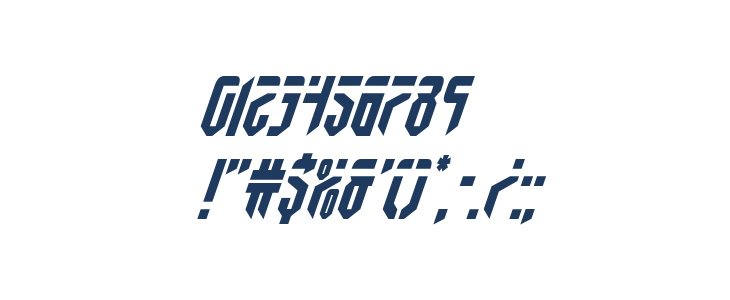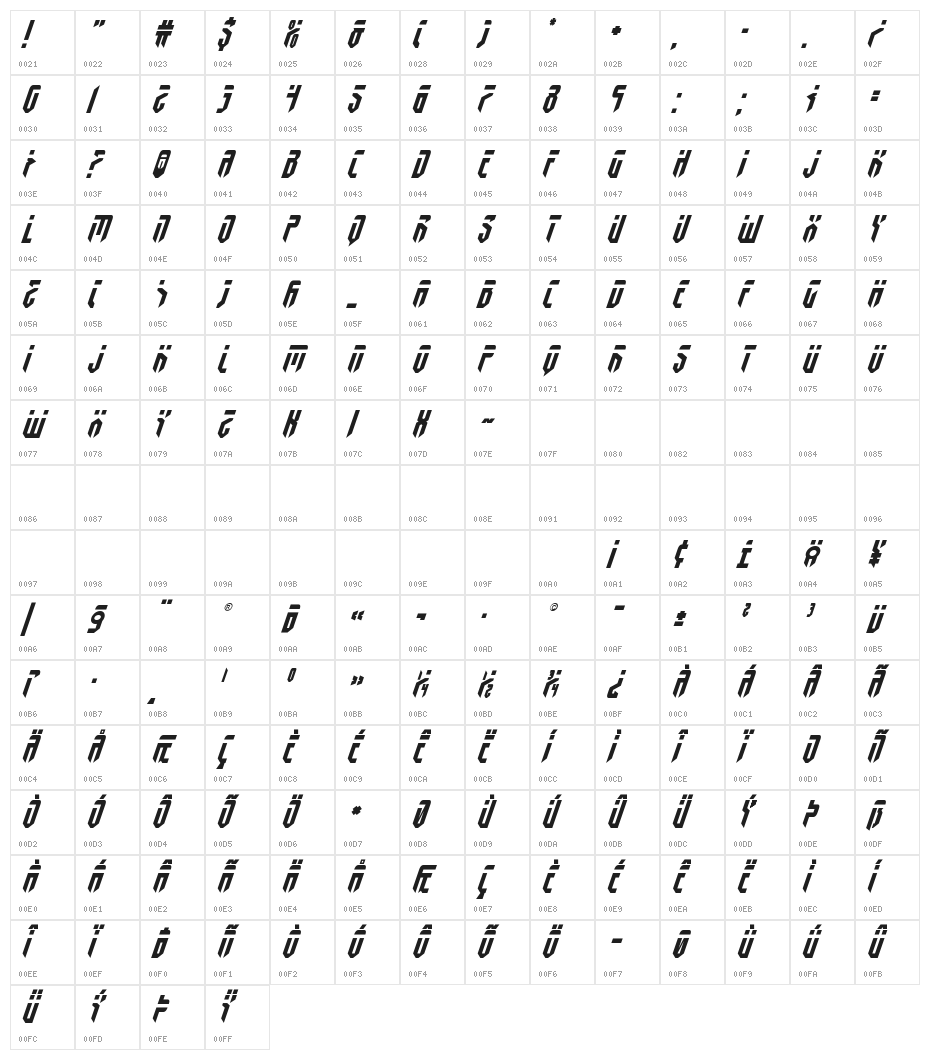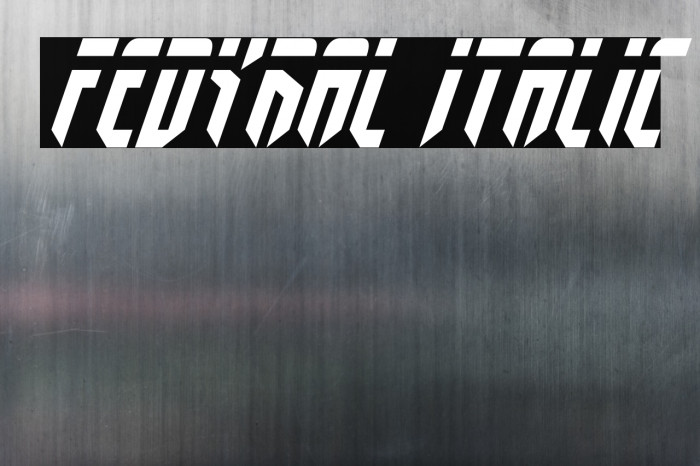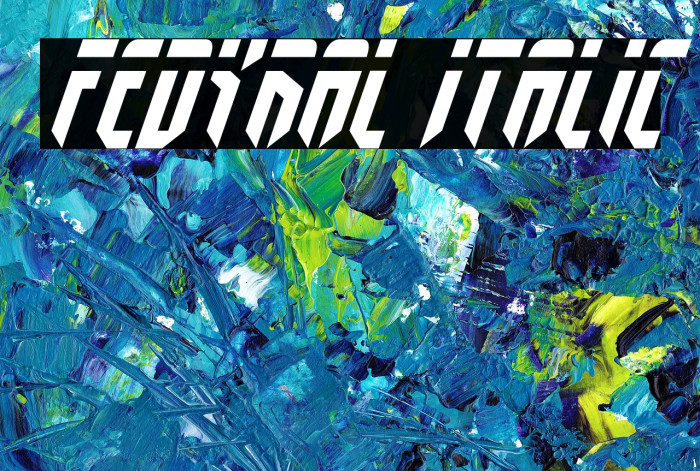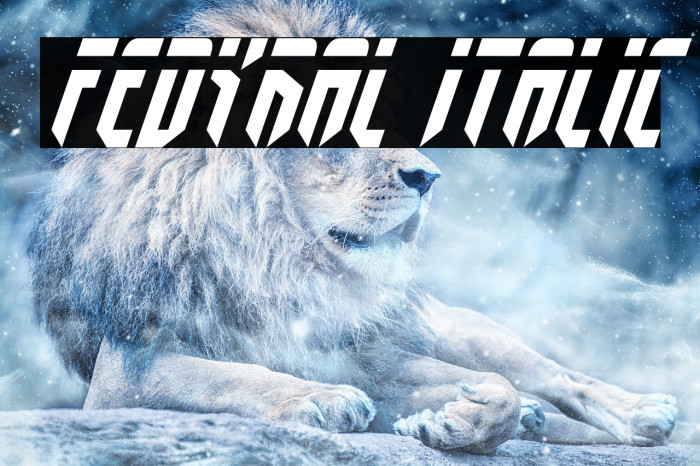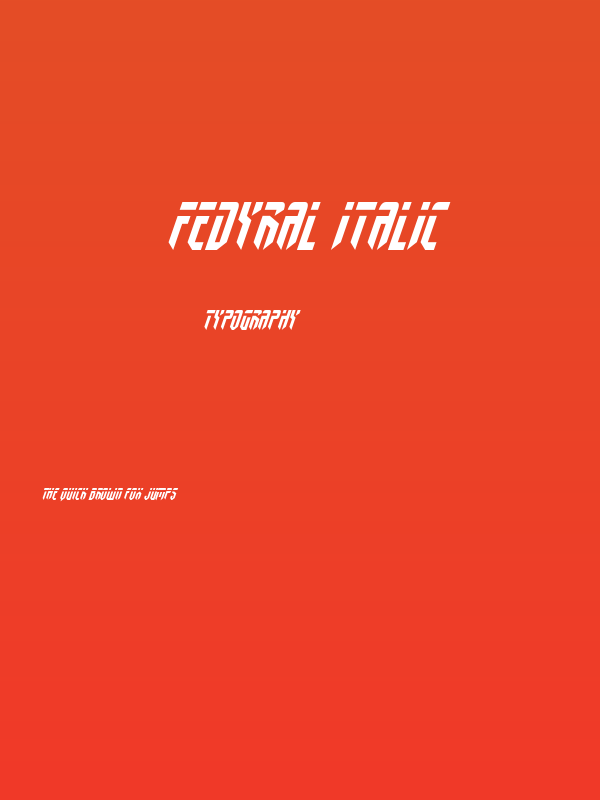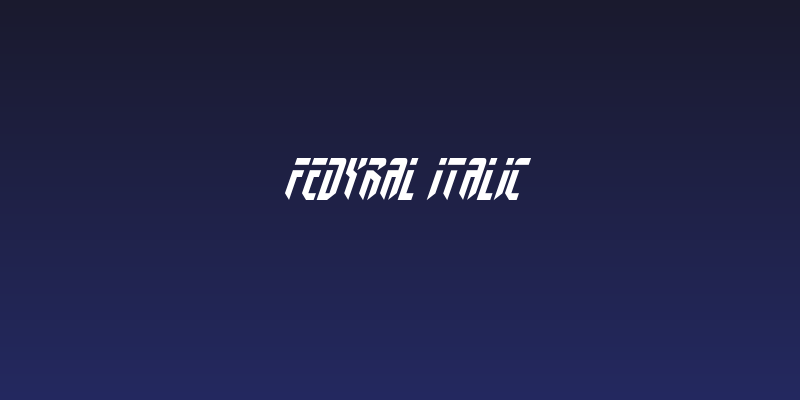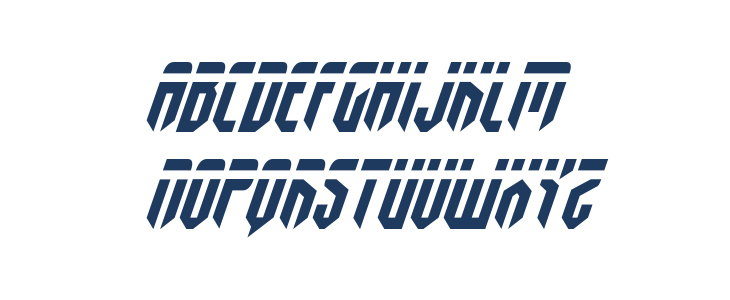
Fedyral Italic Font
Fedyral Italic Description
This font features a bold, italicized style with sharp, angular edges and a futuristic appearance. The characters are designed with a forward-leaning slant, giving a sense of motion and dynamism. The uppercase and lowercase letters maintain a consistent geometric form, with a unique blend of straight lines and sharp angles. The numbers and special characters follow the same design principles, ensuring uniformity across the entire typeface. The font's distinct style makes it stand out, ideal for projects that require a modern and edgy look.
| Proposed Projects | Ideal for sci-fi themed designs, video game titles, tech branding, and modern posters. |